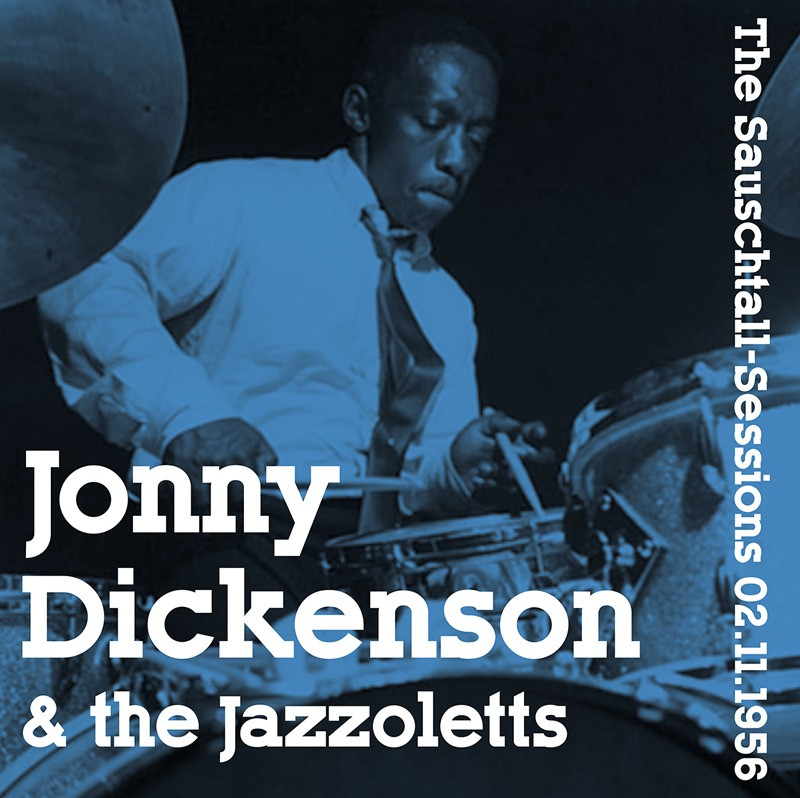
Onefifth Slab Serif Font, It would be a perfect choice to design posters, affiches, logos, t-shirt and magazine prints, eye-pleasing typographic designs and more.
| Designer Name: | Ekkehard Beck |
| Classification: | Serif Fonts, Slab Serif Fonts, Style / Aesthetic Fonts |